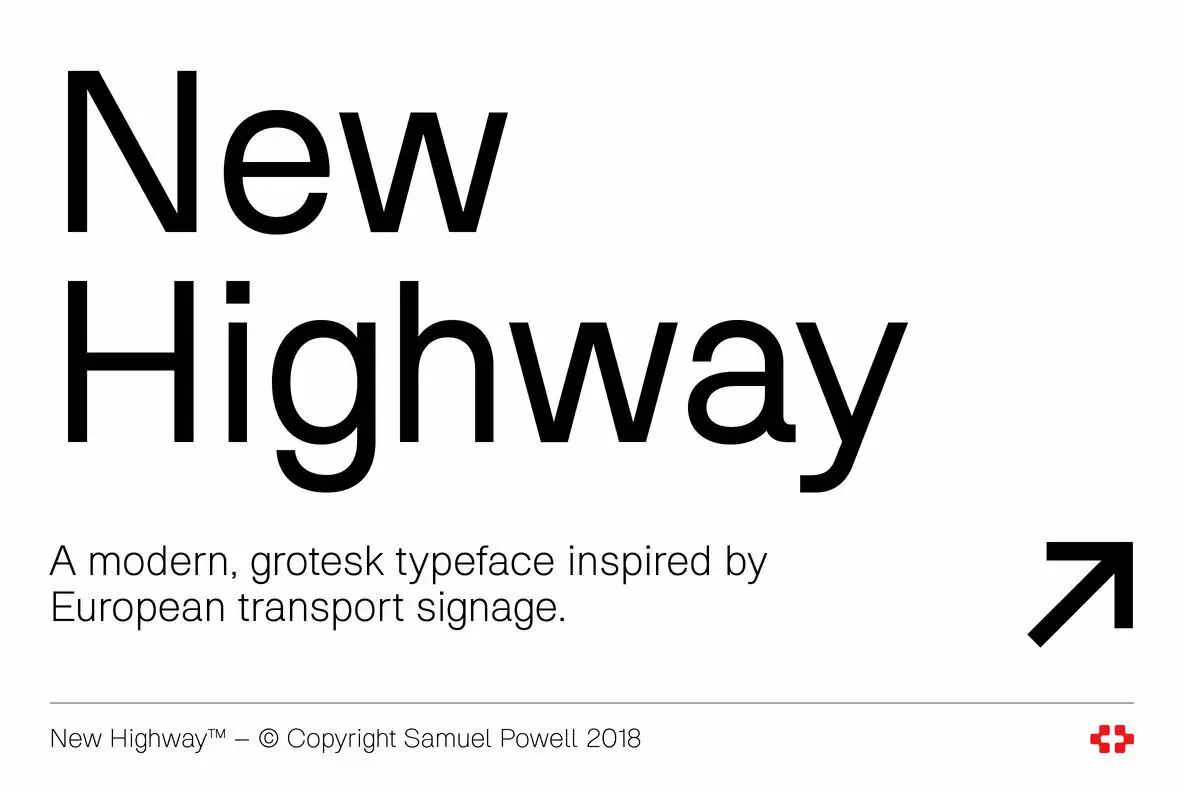
New Highway Font
New Highway Font is perfect for road signage designs, transportation branding, automotive marketing, wayfinding systems, industrial graphics, construction company logos, urban planning materials, traffic safety campaigns, infrastructure projects, and modern municipal designs.
What makes New Highway Font so exciting is its exceptional legibility and robust construction that mirrors the clarity and reliability of actual highway signage typography. This practical typeface combines institutional authority with contemporary design principles, delivering maximum readability under demanding conditions.
The New Highway Font family includes light, regular, medium, bold, and black weights, complete with condensed variations, providing designers with comprehensive options for creating clear, authoritative typography that performs excellently in high-visibility applications.
Navigate your design projects with confidence using New Highway Font Free Download, a professionally engineered typeface that brings the clarity and authority of transportation typography to contemporary design. This exceptional font embodies the principles of functional design, offering uncompromising legibility and institutional credibility for projects demanding clear communication.
The precisely engineered letterforms of New Highway Font feature optimized character shapes and spacing that ensure maximum readability at any distance or viewing condition. Each glyph has been designed according to strict legibility standards used in professional signage applications, making it ideal for projects where clear communication is paramount. The font's generous x-height and open counters contribute to superior visibility and instant recognition.
Transportation authorities and infrastructure designers consistently rely on New Highway Font for projects requiring official credibility and functional excellence. The comprehensive character set includes standard and alternate numerals, directional arrows, highway symbols, and specialized punctuation that enable designers to create authentic transportation-style graphics and wayfinding systems.
The technical superiority of New Highway Font ensures consistent performance across all media and viewing conditions. Whether developing actual signage systems, creating transportation-themed branding, or designing industrial graphics, this remarkable typeface delivers the reliability and clarity that professionals demand in mission-critical communication applications.
Experience the power of functional typography with New Highway Font Free Download. This outstanding typeface transforms ordinary text into clear, authoritative communication that commands attention and delivers information with institutional precision and contemporary style.